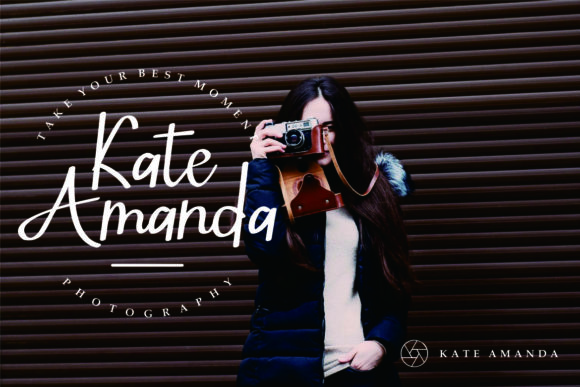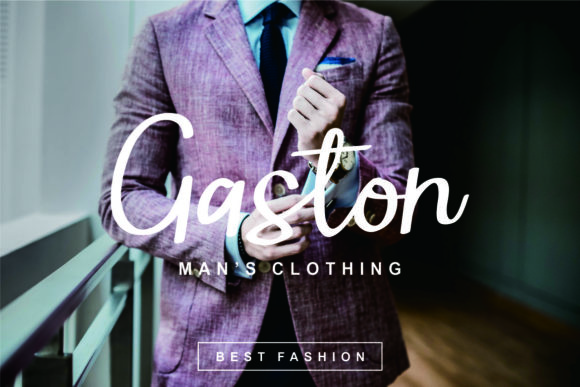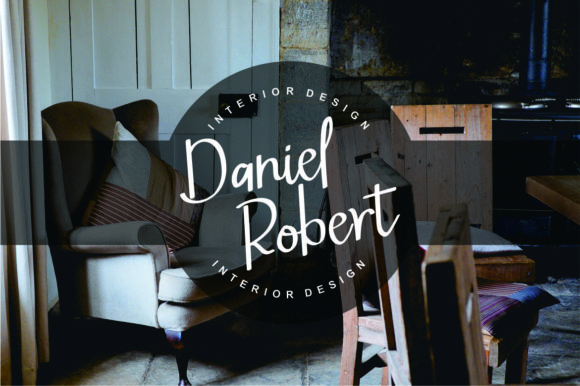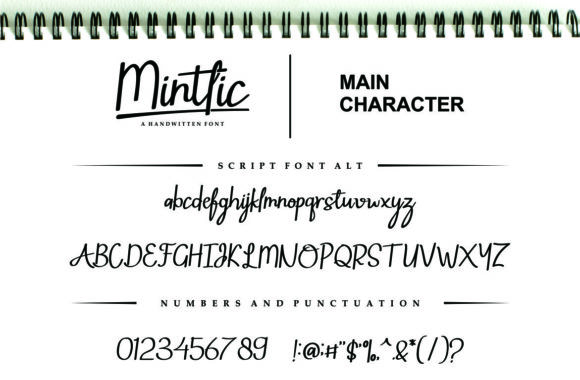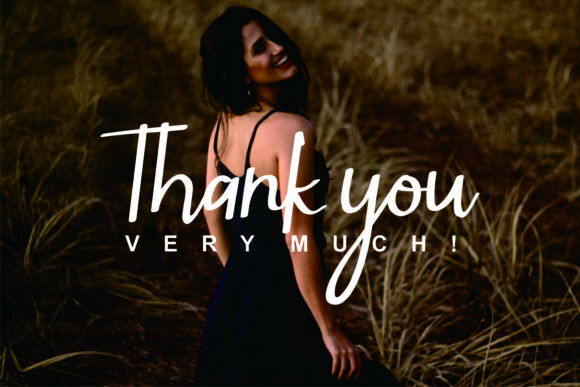
Introduction to Mintlic Font
Remember the moment when you finally nailed that perfect design concept? The rush of excitement, the satisfaction of bringing your creative vision to life? For designers, these moments are what make all the hard work worth it. And what makes these moments even more special is having the right tools at your disposal. This is where the Mintlic Font comes in – a unique handwritten font that’s sure to add a striking touch to your designs.
As a design resource, the Mintlic Font offers a high-quality, free download that’s perfect for a wide range of creative projects. Whether you’re working on logos, labels, or packaging design, this font’s cool and modern style is sure to make your designs stand out. With its transparent background and modern aesthetic, the Mintlic Font is a valuable addition to any designer’s toolkit.
- Unique, hand-crafted design elements and glyphs for added creativity and flair.
Honest Review: Mintlic Font
As a designer, I’m always on the lookout for high-quality design resources that can elevate my creative projects. The Mintlic Font caught my attention with its unique, modern aesthetic.
What works well about the Mintlic Font is its versatility. I was able to use it for a variety of projects, from a logo design to a brochure, and it always looked great. The font’s clean lines and minimalistic design make it perfect for modern branding. Additionally, the font’s transparent background feature allows for easy customization and layering, making it a great resource for designers.
Here are some key features of the Mintlic Font:
- High-quality font that’s perfect for modern branding and design projects
- Transparent background feature for easy customization and layering
However, I did encounter some limitations with the font. It’s not as extensive as some other font families, and some characters are missing. ⚠️ This may be a concern for designers who require a wide range of characters for their projects.
Overall, I’m impressed with the Mintlic Font. While it’s not perfect, its unique design and versatility make it a great addition to any designer’s toolkit. With a little creativity, I’m confident that the Mintlic Font can help take your design projects to the next level. ✨
Tips for Getting the Most Out of Mintlic Font
For optimal results, use the Mintlic Font with a transparent background to create a seamless design. You can also experiment with different font sizes and styles to achieve the desired look. Additionally, consider combining the Mintlic Font with other design resources to create a unique and eye-catching design.
The Mintlic Font is perfect for a variety of design projects, including business cards, brochures, and presentations. Its high-quality design and transparent background make it ideal for creative projects that require a professional look.